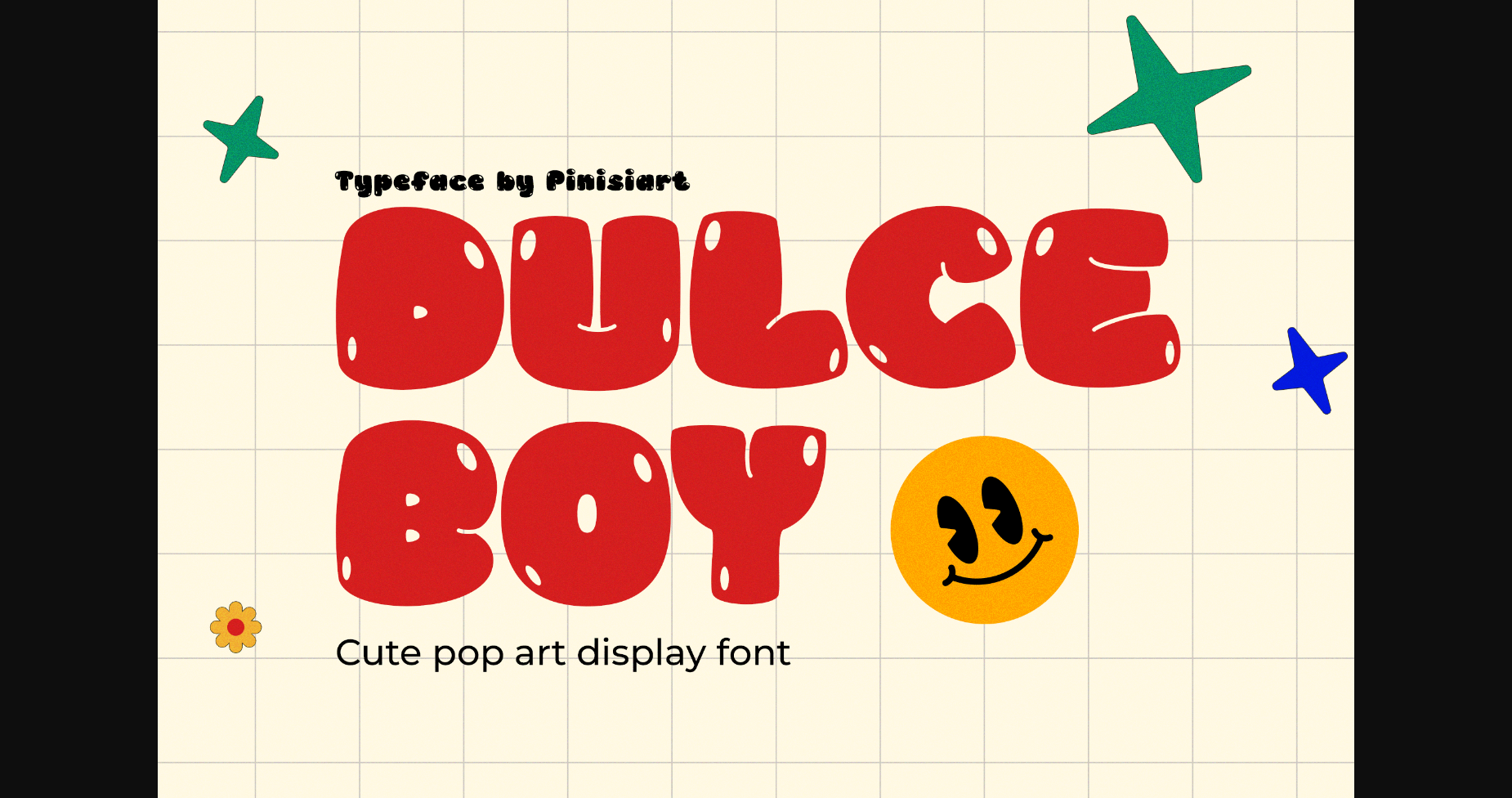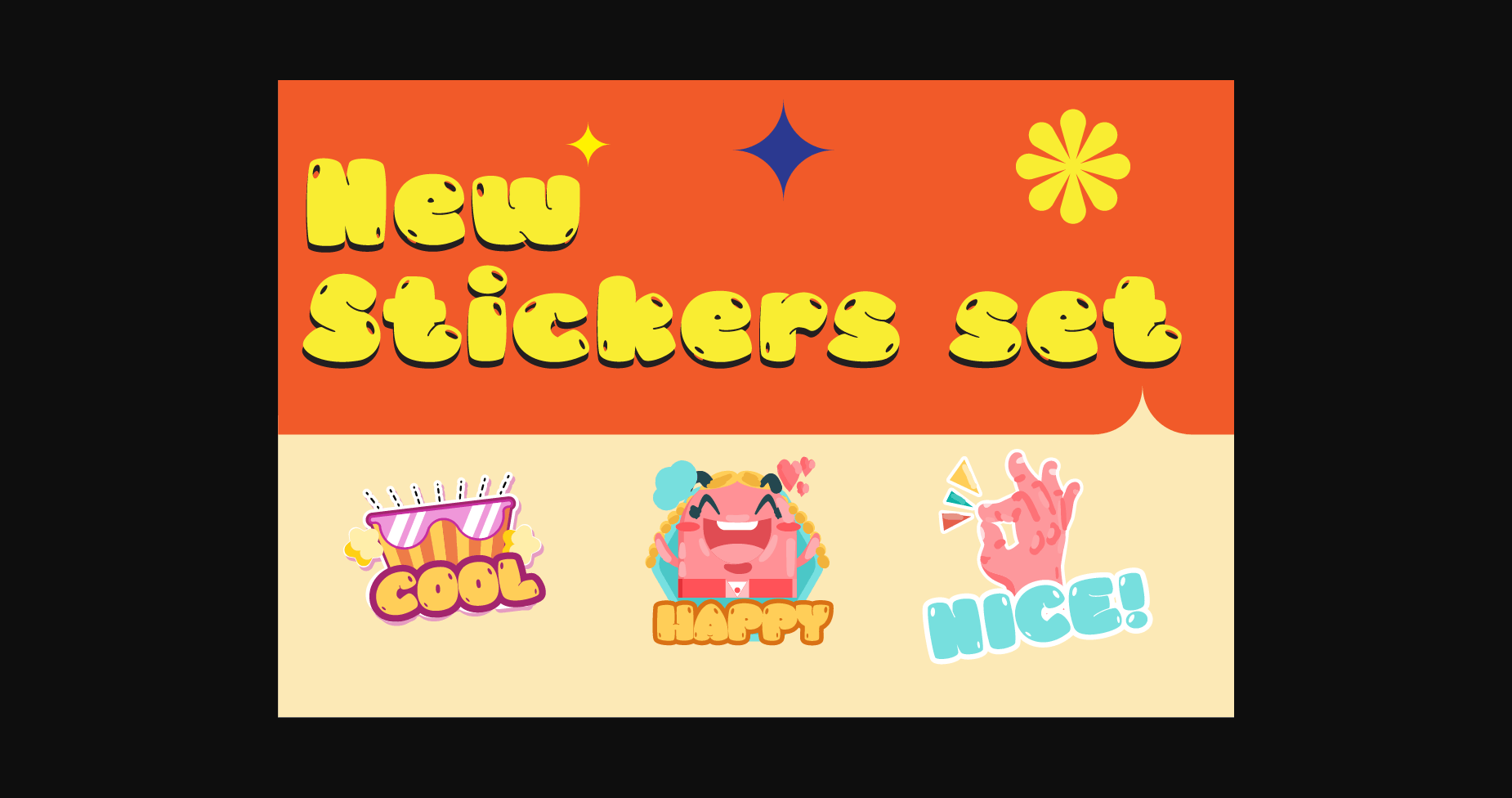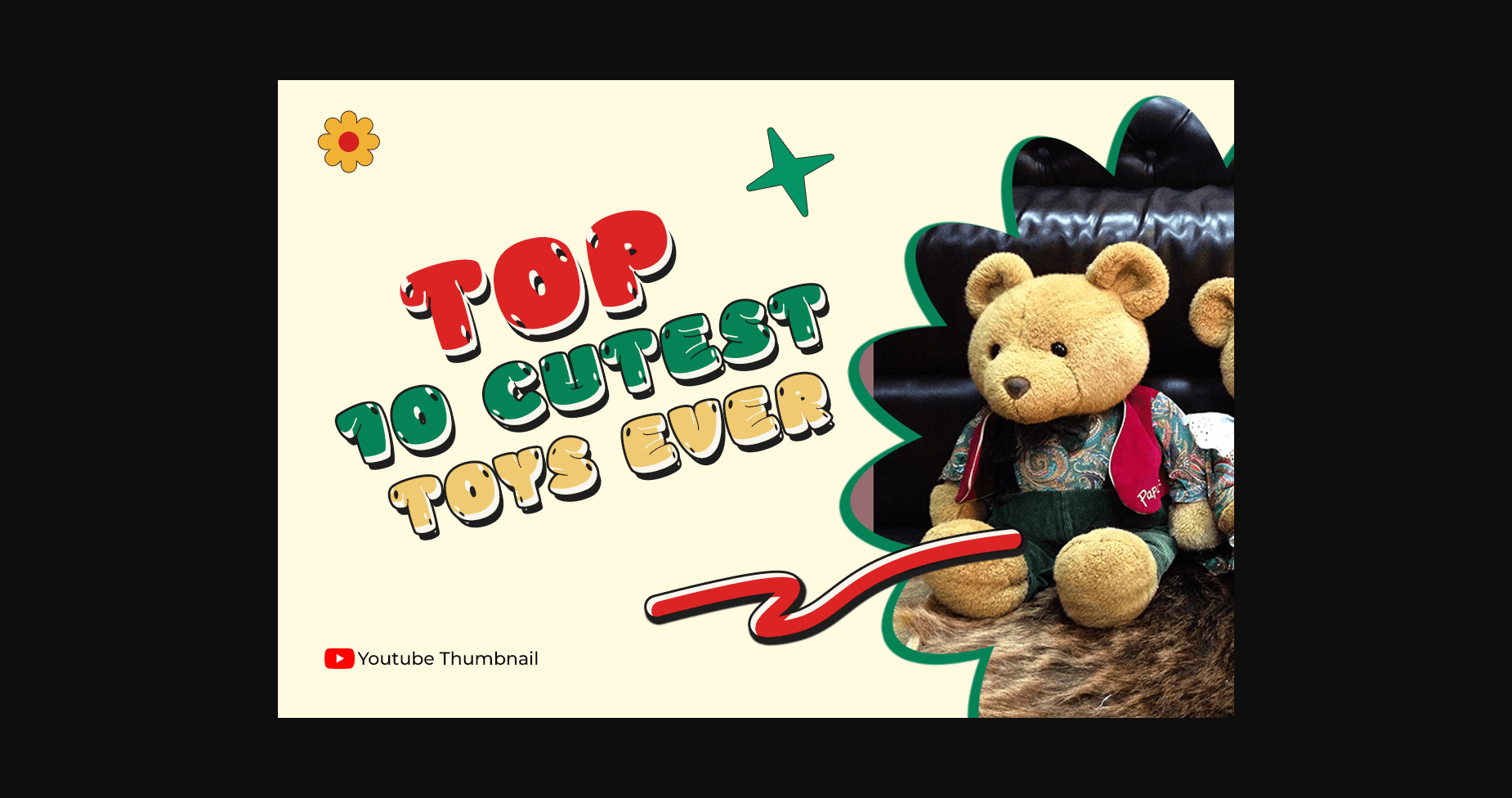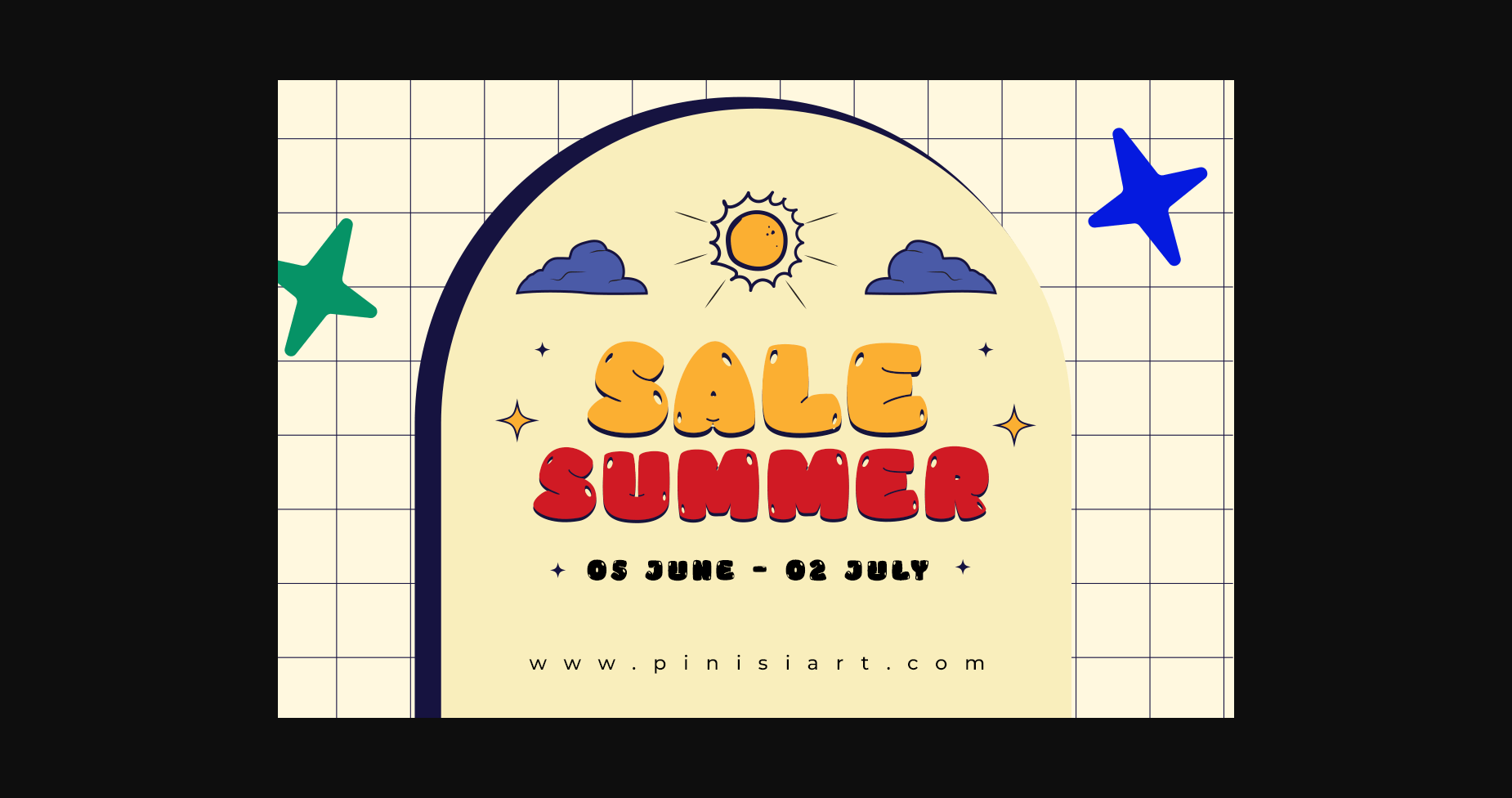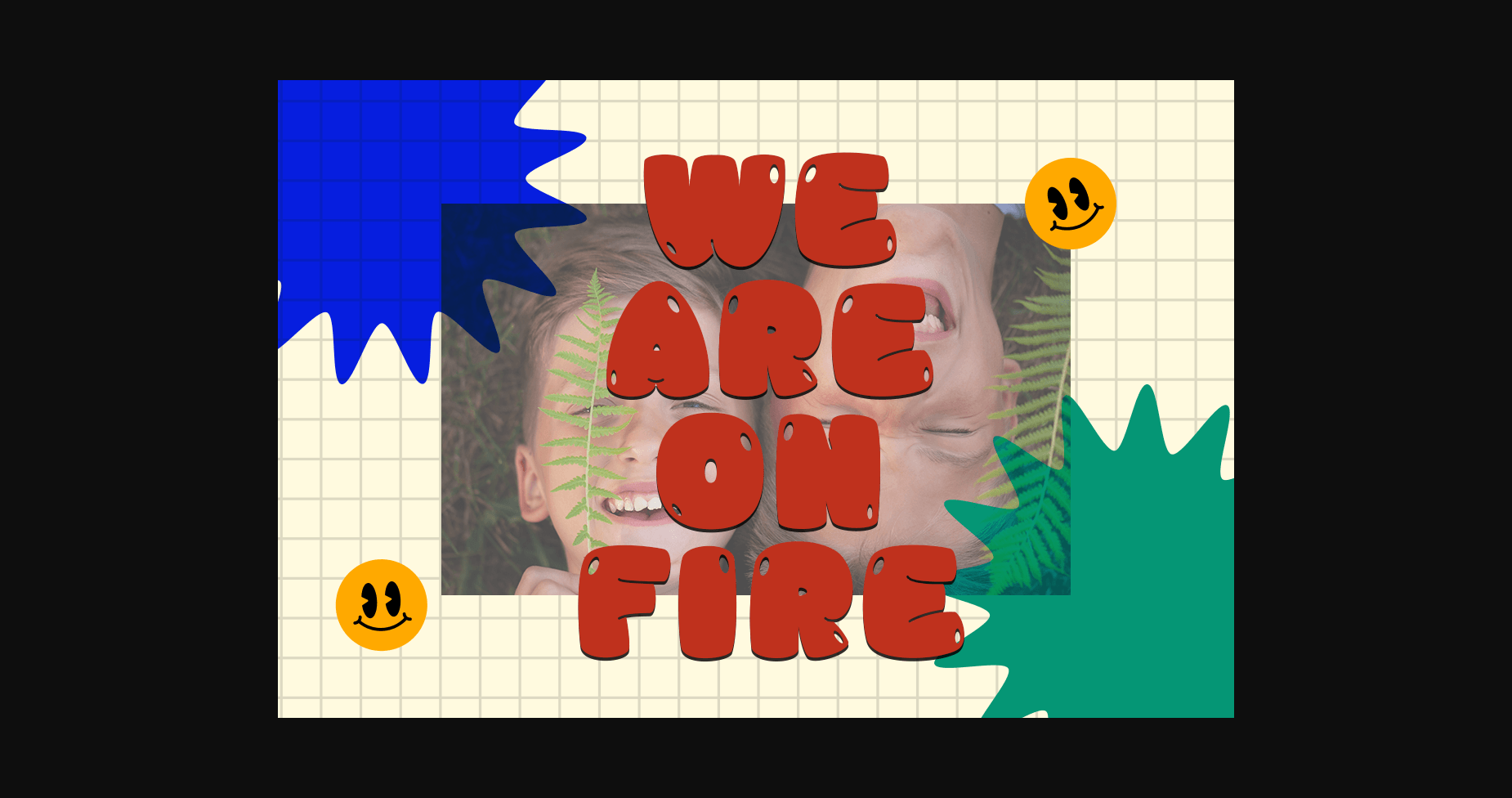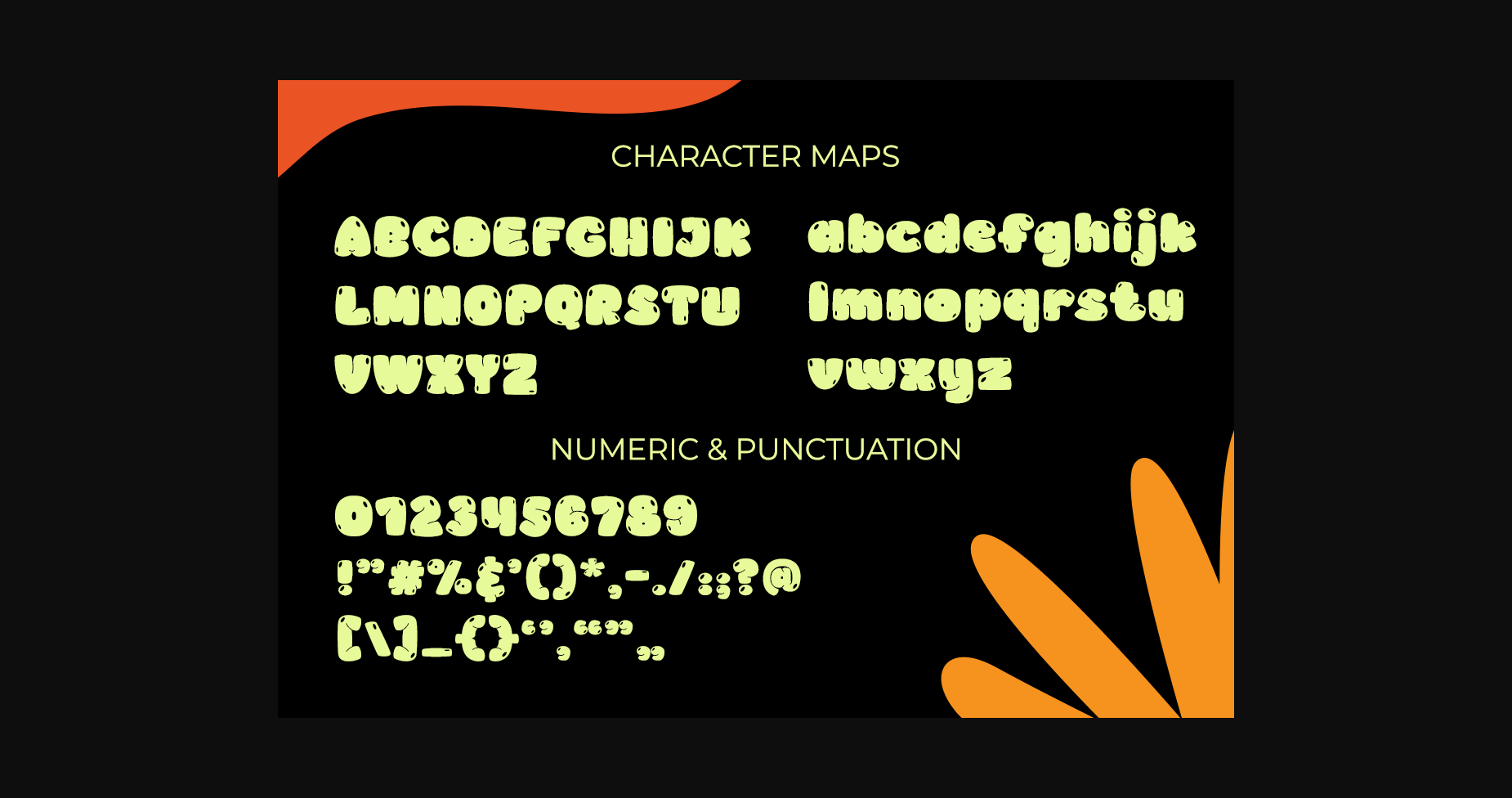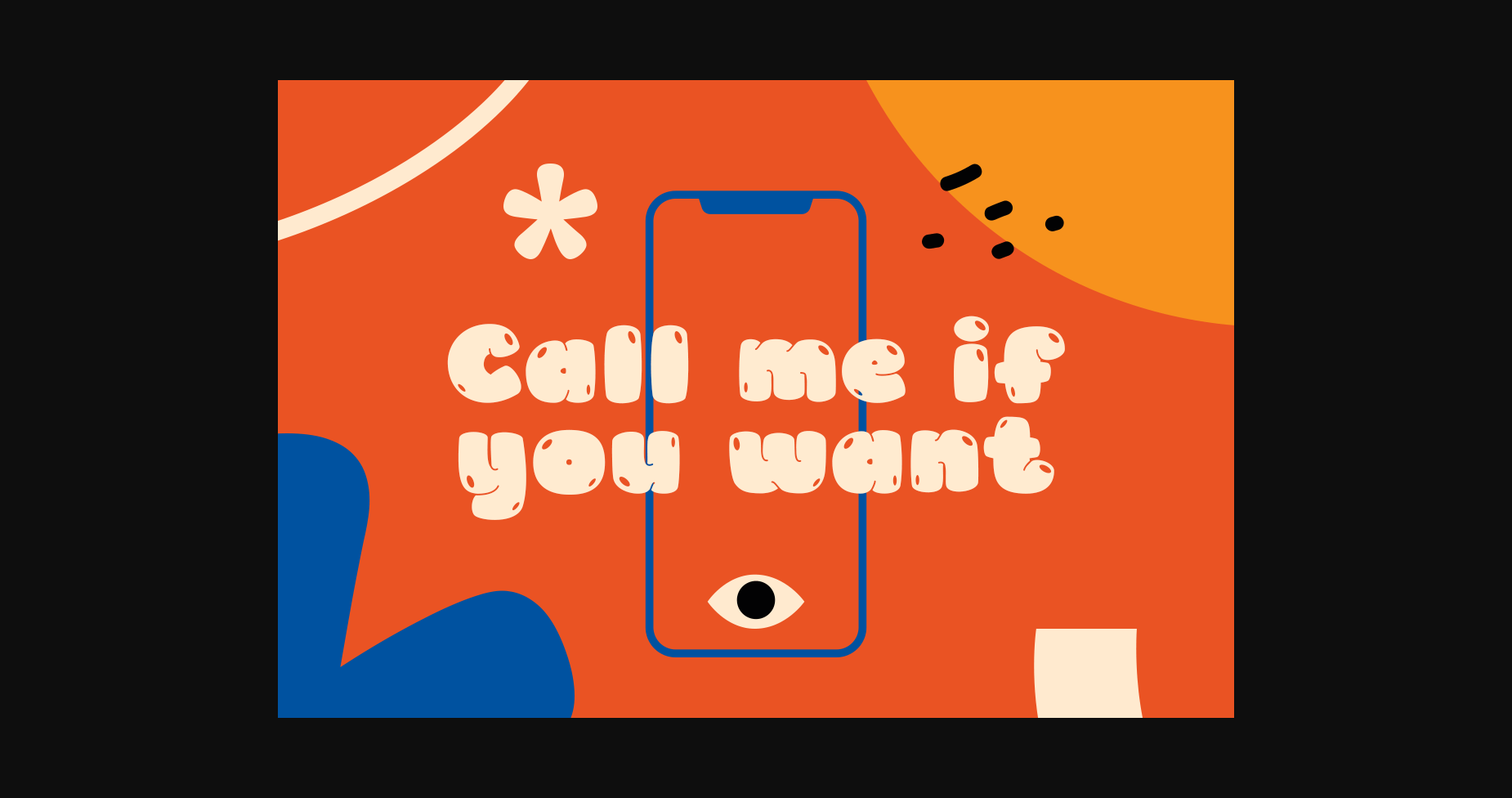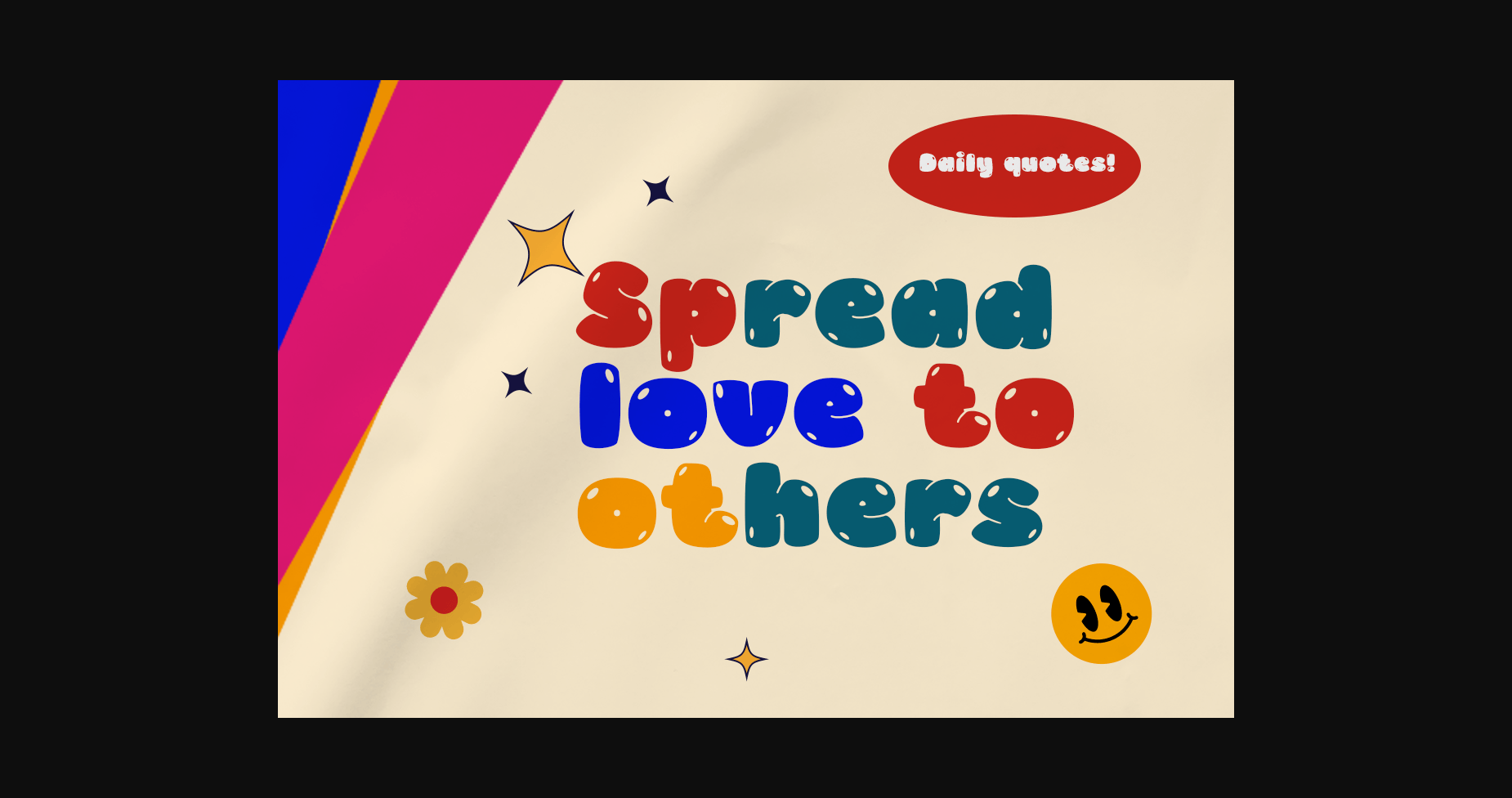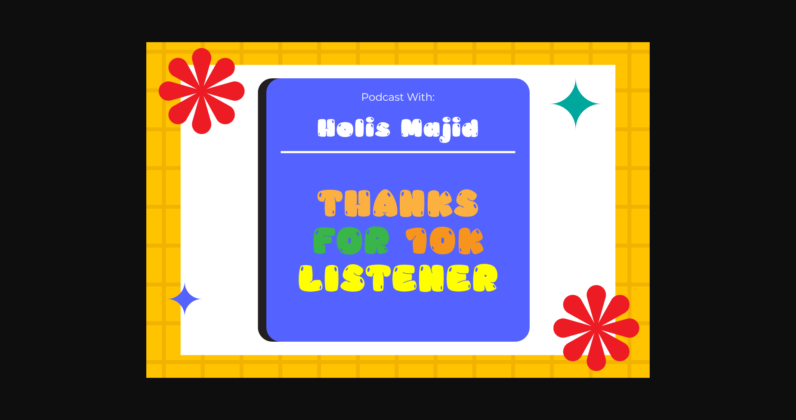
Dulce Boy is a cool, incredibly cute, and bubbly display font. Add it to each of your party invitations, swimming gathering, or pretty much any design that requires a touch of youth and joy.